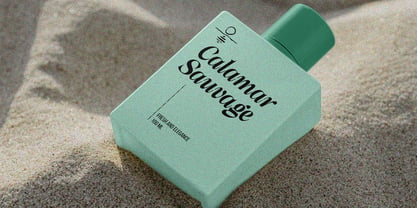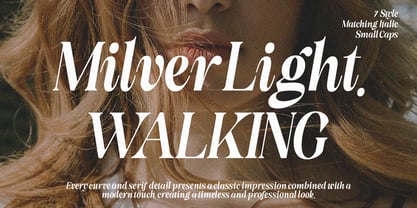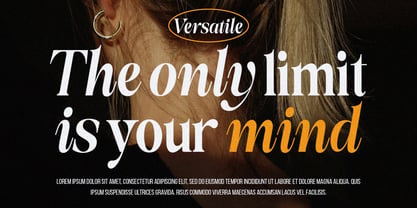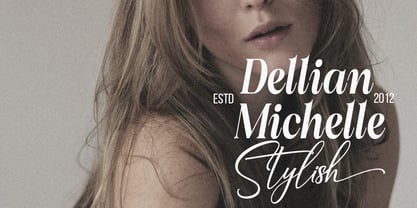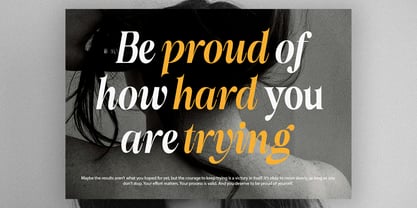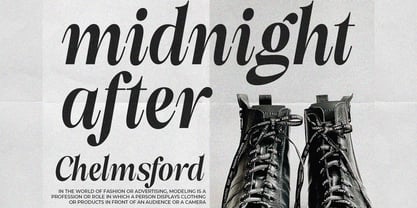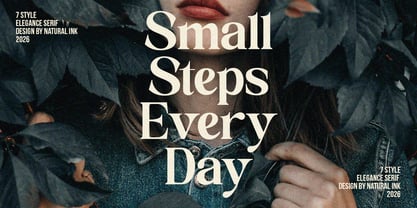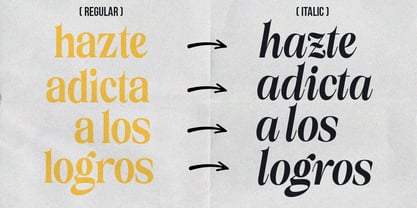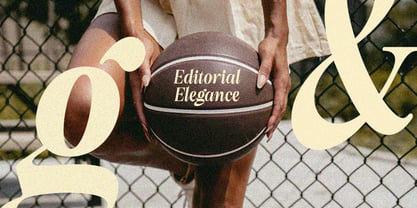
Milver Light Walking
by Natural Ink
The Milver Light Walking Font Family was designed by Arif Gunawan and published by Natural Ink. Milver Light Walking contains 7 styles and family package options. More about this family
This serif font is designed to bring together classic elegance and a relaxed modern feel within a single, harmonious type family. Its refined serif details and well-balanced letter proportions create a sense of elegance and sophistication, while fluid letter rhythms and soft, unrigid details make it feel friendly, casual, and easy to use across various design contexts. With a complete range of widths and slanted styles, this font offers high flexibility for building dynamic visual hierarchies—from sophisticated editorial layouts to modern, approachable branding. Its consistency across both print and digital media makes it an ideal choice for designers who value aesthetics as much as functionality. Italic Condensed Slim and dynamic, delivering an elegant feel with an expressive touch. Ideal for captions, highlights, or headlines in limited spaces. Condensed Strong and efficient, perfect for headlines or layouts that require compactness without sacrificing readability. Regular Balanced and neutral, serving as the core foundation for body text with optimal reading comfort. Italic Fluid and classic, providing a soft yet relaxed accent for text emphasis or narrative elements. Italic Expanded Wide and expressive, emphasizing an artistic sense of elegance. Perfect for editorial titles or visual statements. Expanded Open and authoritative, allowing each letter to breathe for a modern and refined appearance. Slant Lightly angled with a contemporary character, offering a more casual and dynamic alternative to traditional italics. With these 7 complementary fonts, you’ll have endless creative freedom to craft designs that are both elegant and personal. A perfect choice for designers, entrepreneurs, and creatives who want to add a professional yet warm touch to their work.
Designers: Arif Gunawan
Foundry: Natural Ink